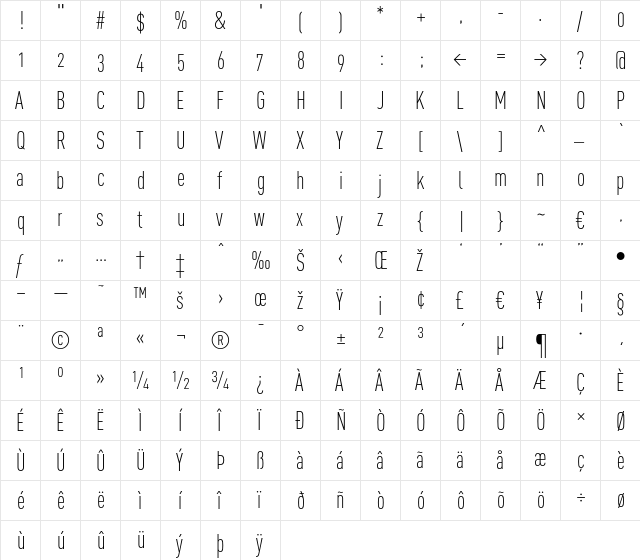
DINCond-LightAlternate Regular
Design Context for DINCond-LightAlternate Typeface
DINCond-LightAlternate is a composed and adaptable typeface that performs quietly and consistently across a wide range of design contexts. Its slender proportions lend an understated elegance to any composition. Its narrow stance lets it pack a punch even in space-constrained designs.